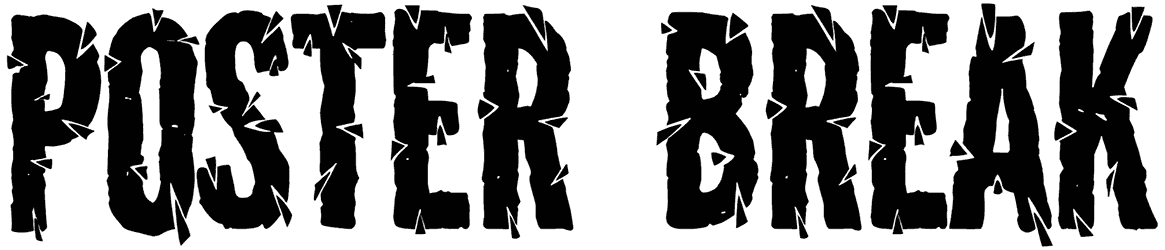
Poster Break Font
Chance comes to those who dare to try a destroy font such as Poster Break in their graphic content, like stickers, editorial projects, wood engravings, or social media posts. Aside from the lack of lowercase letters, this masterpiece comes in a scratched form and grabs the attention of the audience by conveying a feeling of grunge, smudgy, tenderness, or fierceness.
Poster Break.
WOODCUTTER